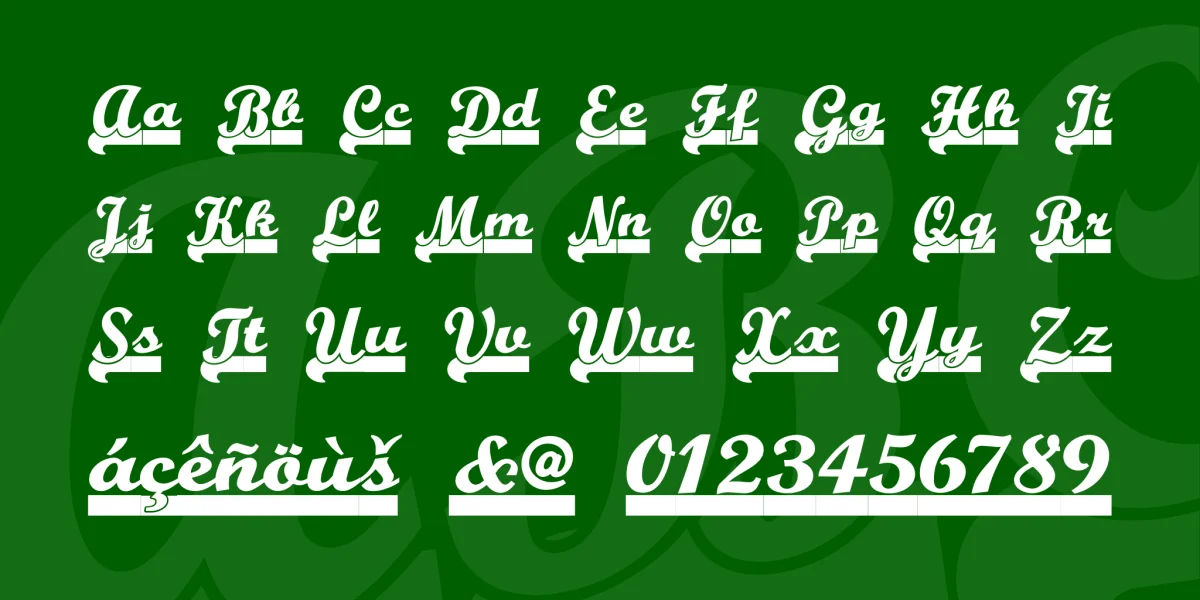
Here’s a handy item to have if you do much sports-related stuff. Crank out those team names, complete with ribbon banner beneath, with this adaptation of an old standard, Monotype Script. Cap the banner at the beginning of lowercase words with an open parenthesis — ( — and add the tail at the end of words with the close parenthesis — ).
Buffalo Nickel is the same font without the ribbon banner swashes